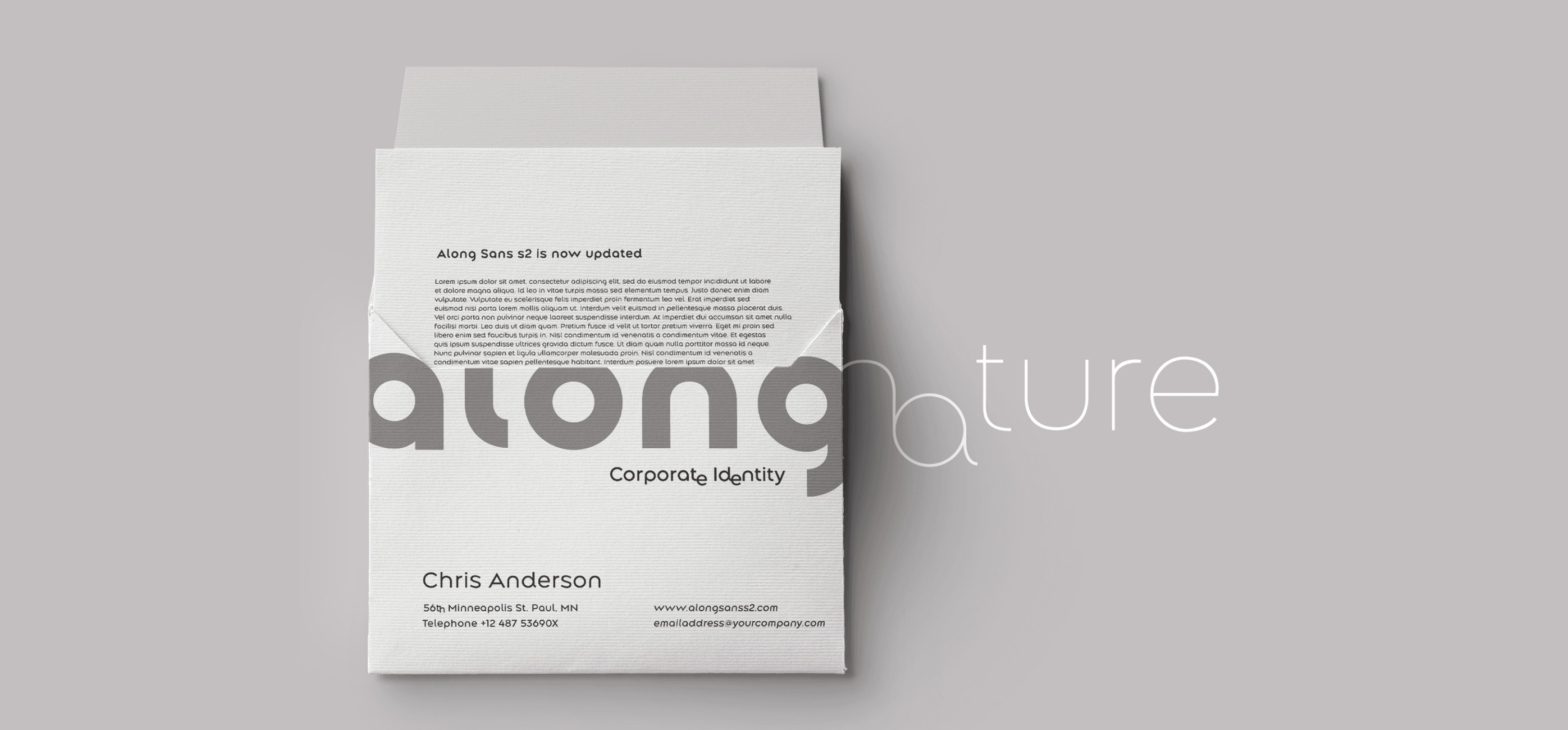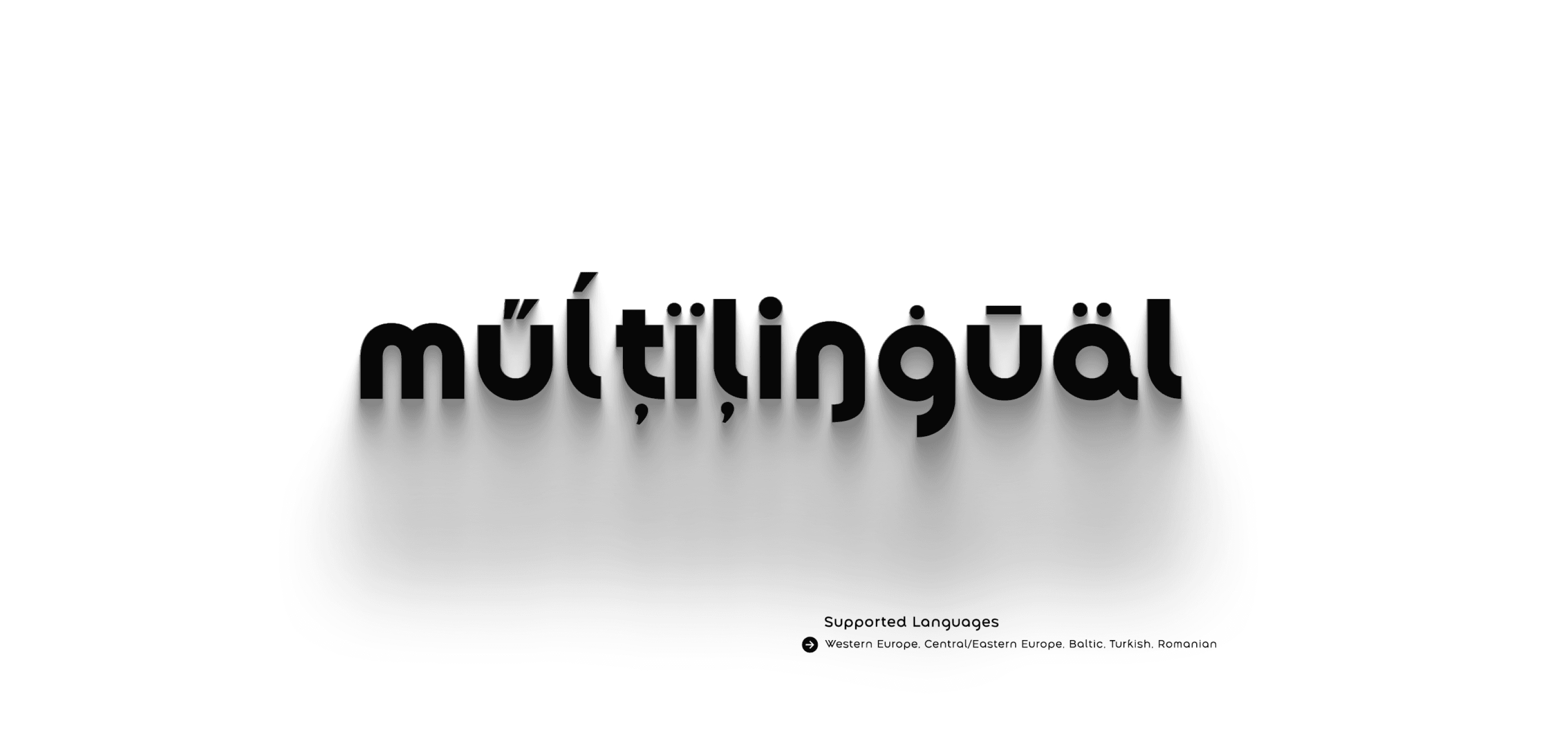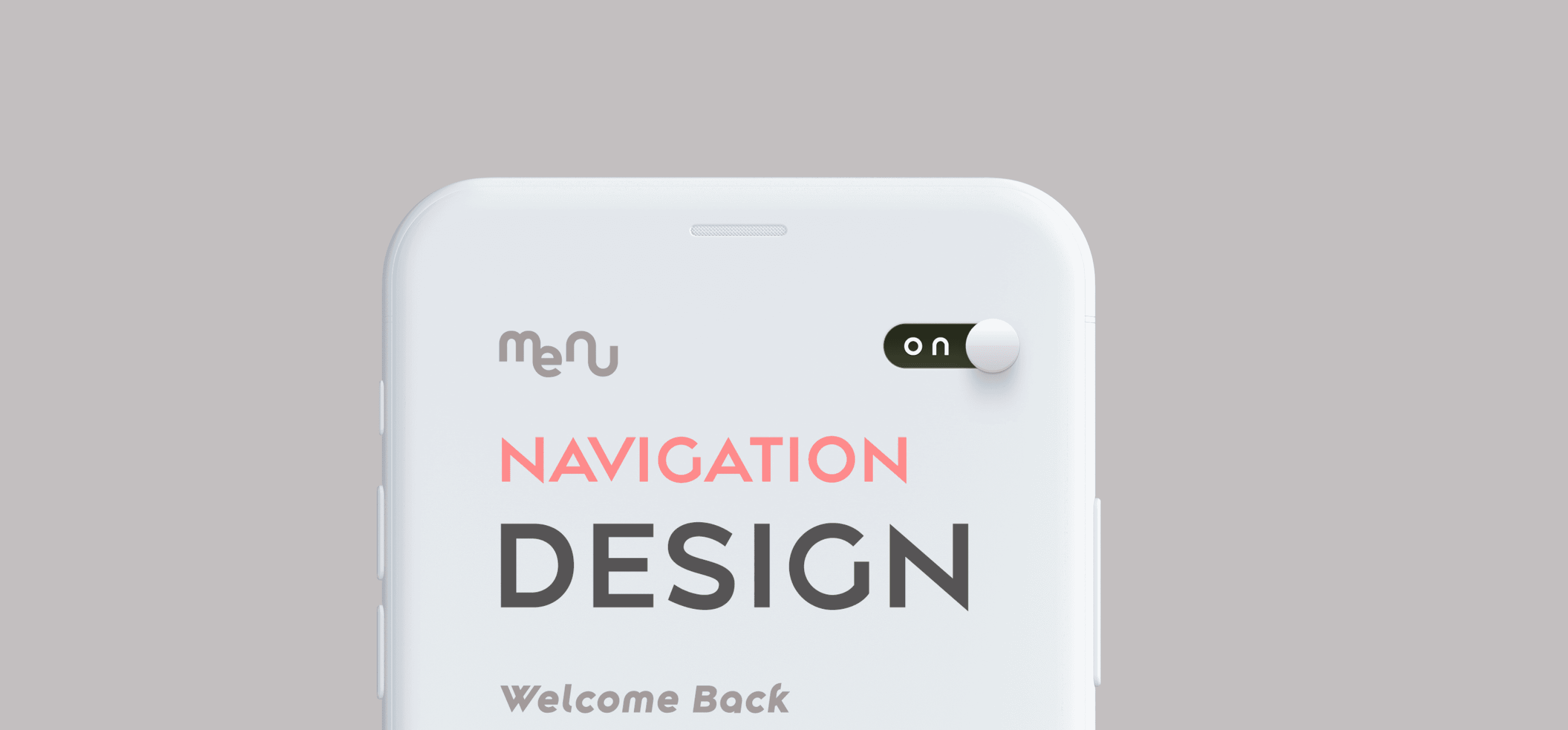
In this season, it's upgraded the originality of glyphs and improved the kerning system for readability.
It is suitable for creating more unique and elegant logos and heading styles.